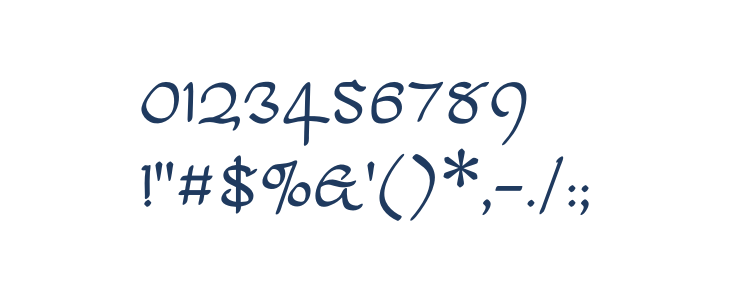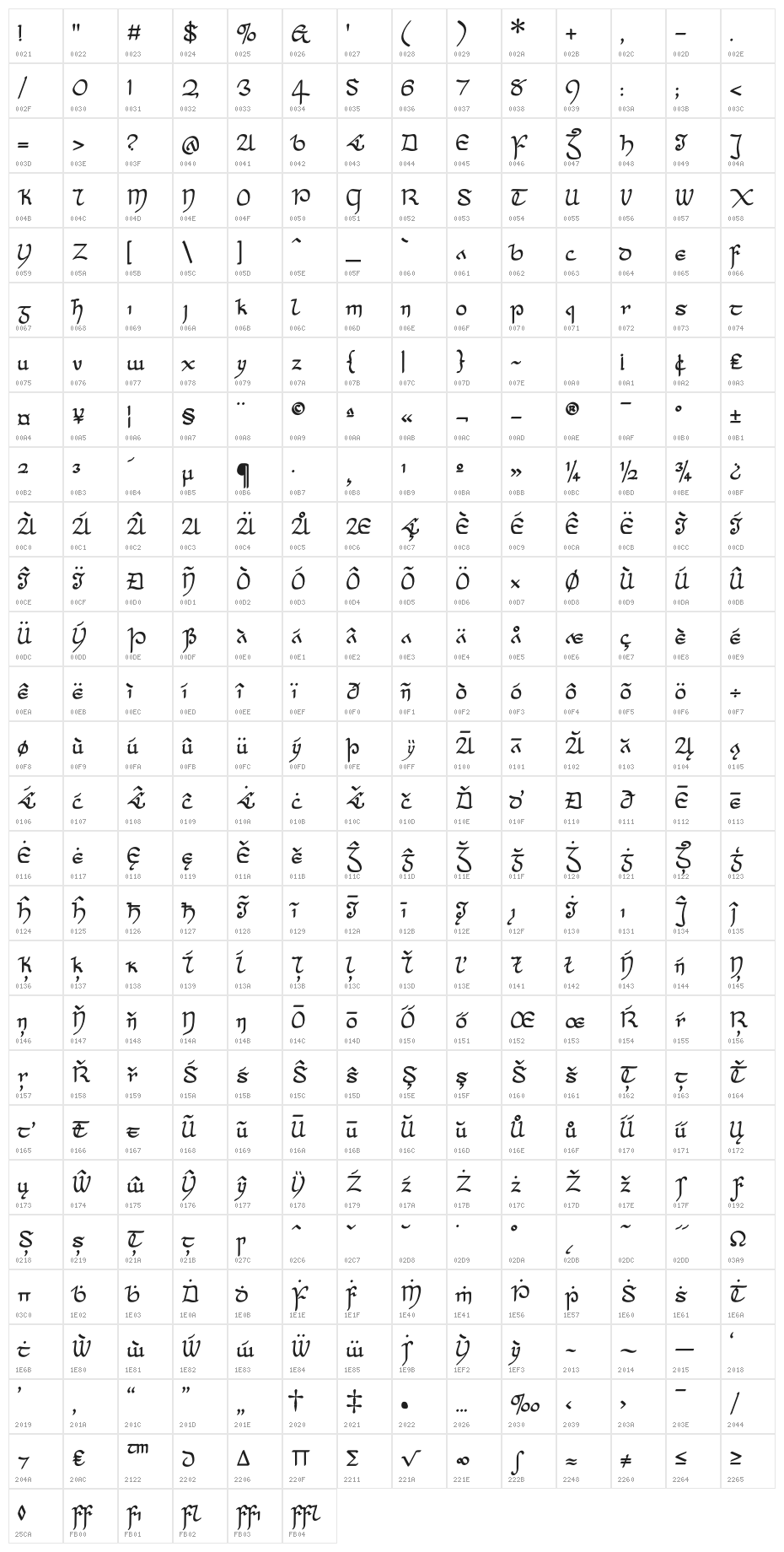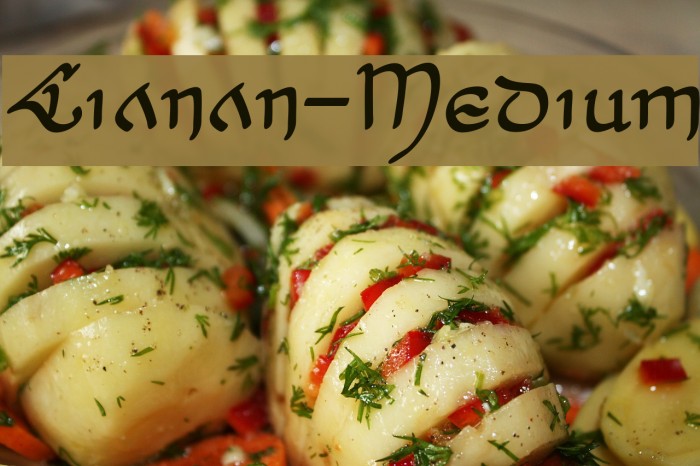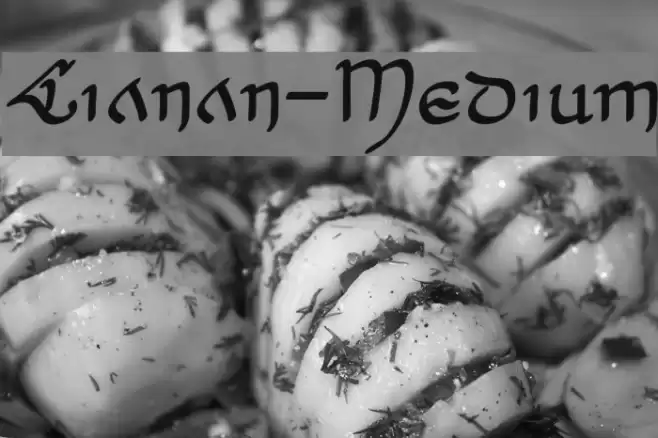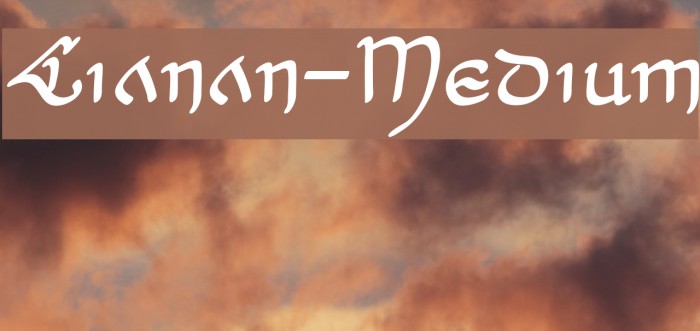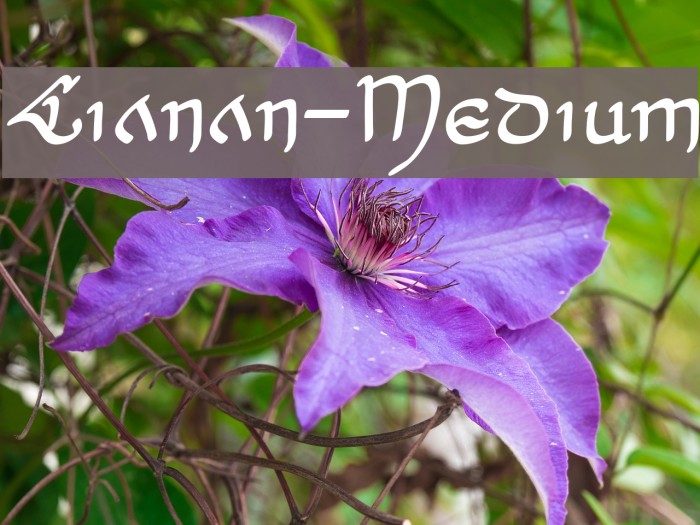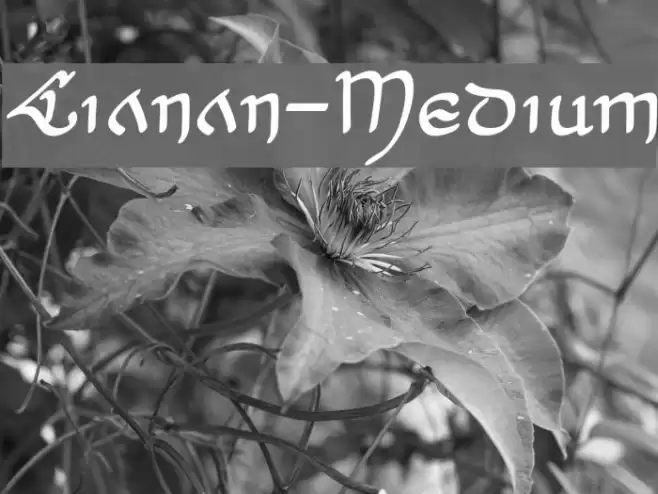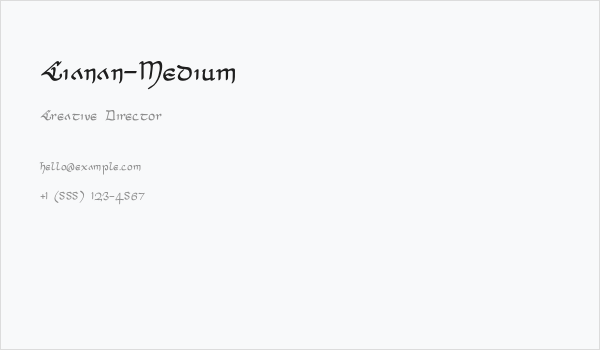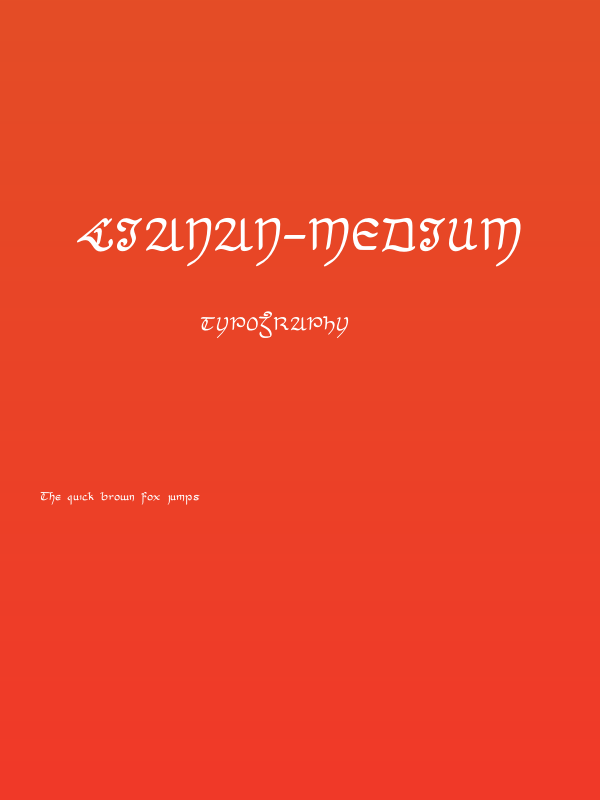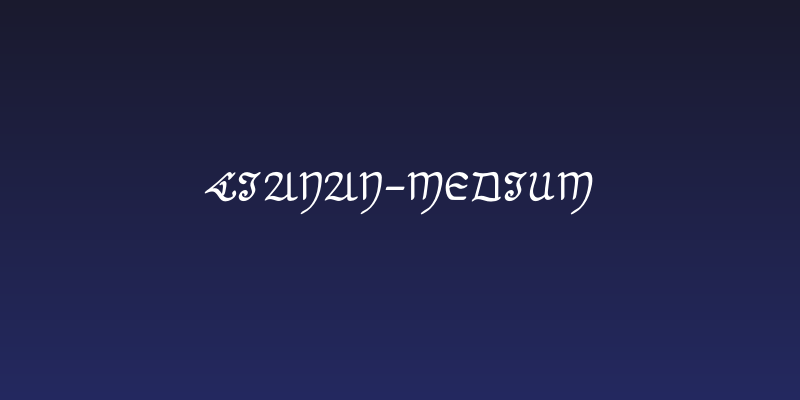
Cianan-Medium Font
Cianan-Medium Description
This font features a distinctive and artistic style, characterized by its flowing and slightly whimsical letterforms. The uppercase letters exhibit unique curves and angles, giving them a dynamic and lively appearance. The lowercase letters maintain a consistent style, with smooth transitions and elegant loops. The numerals are bold and clear, matching the overall aesthetic of the alphabet. Special characters are creatively designed, adding to the font's decorative appeal. The font's overall look is reminiscent of calligraphy, with a modern twist, making it suitable for a variety of creative projects.